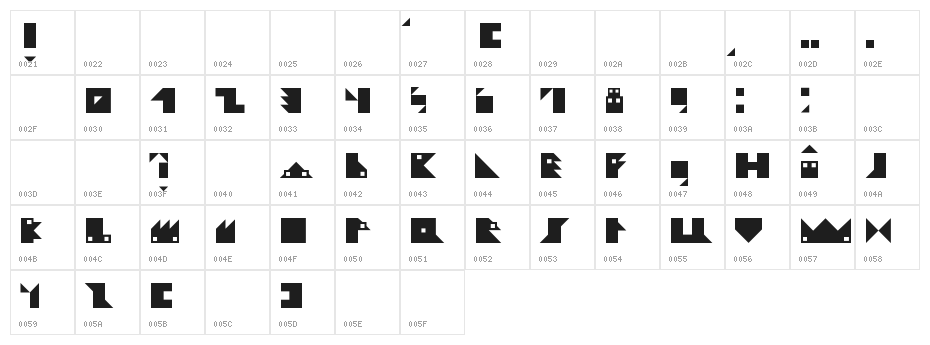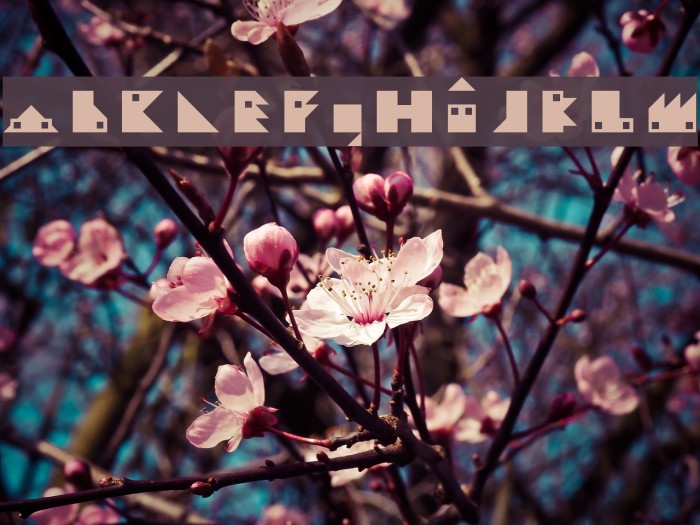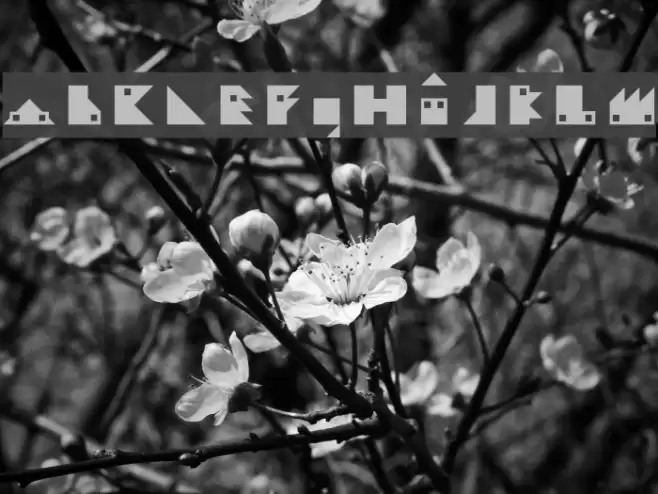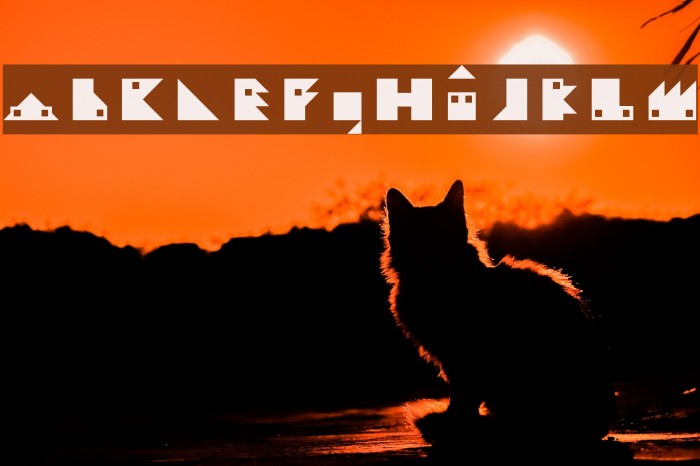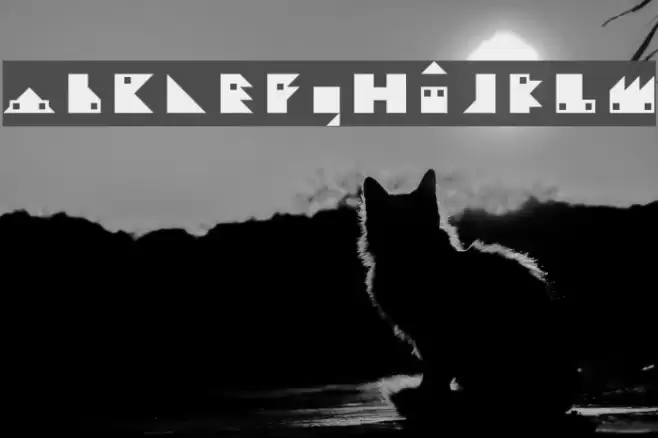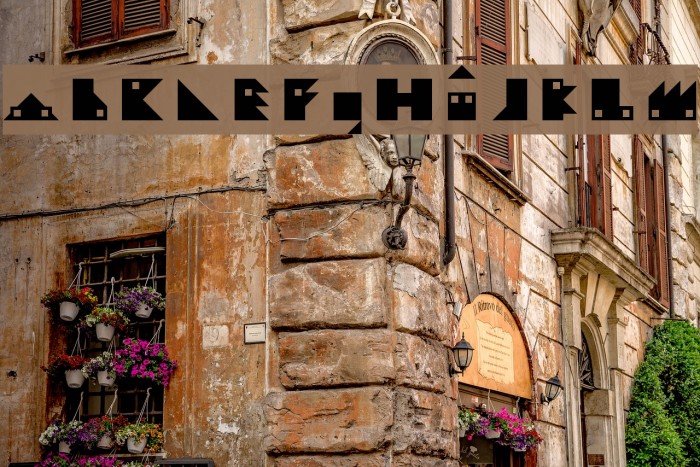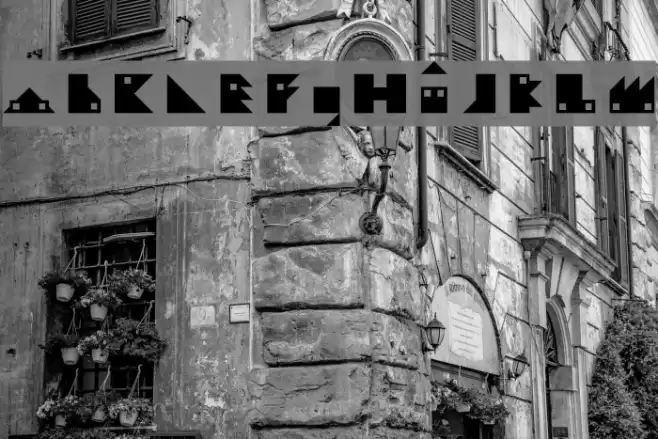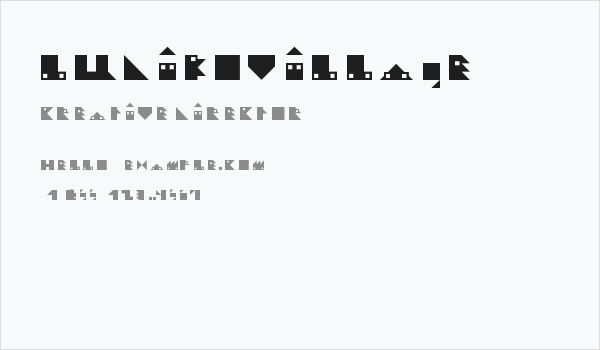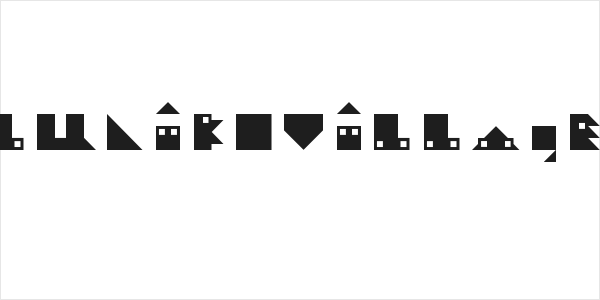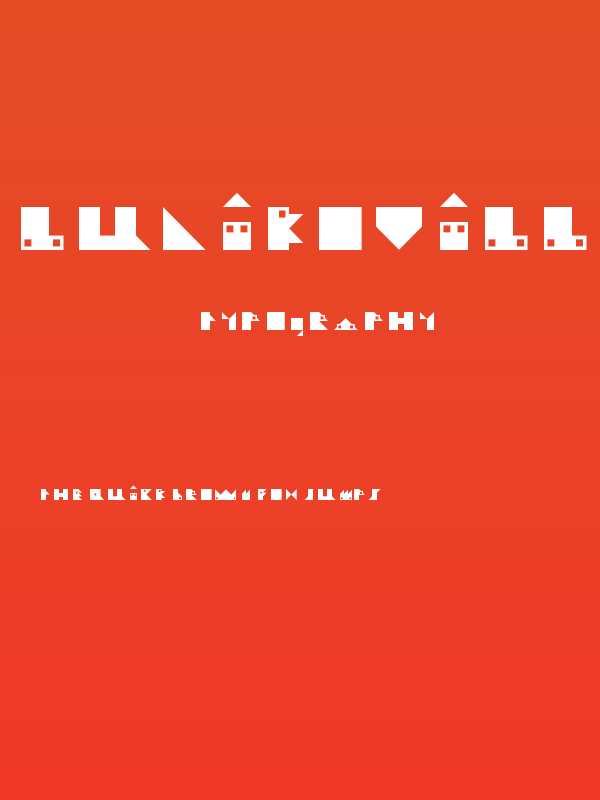
LudikoVillage Font
LudikoVillage Description
This font features a highly geometric and abstract design, with each character resembling a stylized building or structure. The letters are composed of bold, angular shapes with sharp edges and corners, creating a unique architectural aesthetic. The uppercase and lowercase letters maintain a consistent style, with some characters incorporating small square cutouts that resemble windows. The numbers and special characters follow the same design principles, contributing to a cohesive and distinctive look. This font is ideal for projects that require a modern and unconventional appearance.
| Proposed Projects | Ideal for architectural branding, modern art posters, urban-themed designs, and innovative product packaging. |